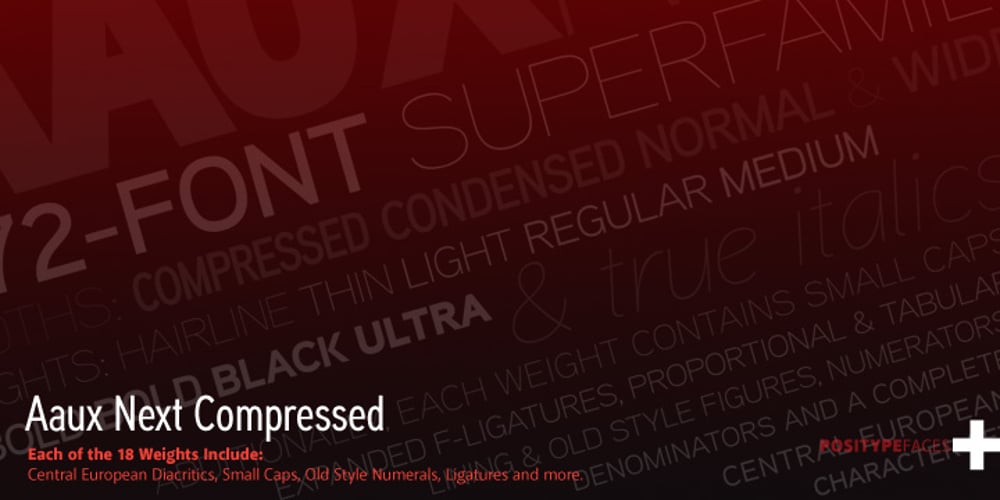
Aaux Next Comp
Aaux Next Comp font
Aaux Next Comp Font Family was designed by Neil Summerour and published by Positype. Aaux Next Comp contains 18 styles and family package options. When the original Aaux was introduced in 2002, I intended to go back and expand the family to offer more versatility. Years went by before I was willing to pick it up again and invest the proper time into building a viable and useful recut. Just putting a new designation and tweaking a few glyphs here and there would not do the designer or the typeface justice; instead, I chose to redraw each glyph’s skeleton from scratch for the four main subsets of the super family along with their italics. Each glyph across the super family is ‘connected at the hip’ with each style—each character carries the no frills, simple architecture that endeared so many users to it. The new recut expands the family to an enormous 72 typefaces! The original has spawned Compressed, Condensed and Wide subsets—all with corresponding weights—for complete flexibility. Additionally, all of the original weight variants have all been incorporated within the OpenType shell: Small Caps and Old Style Figures are there along with new tabular figures, numerators and denominators, expanded f-ligatures and a complete Central European character set.